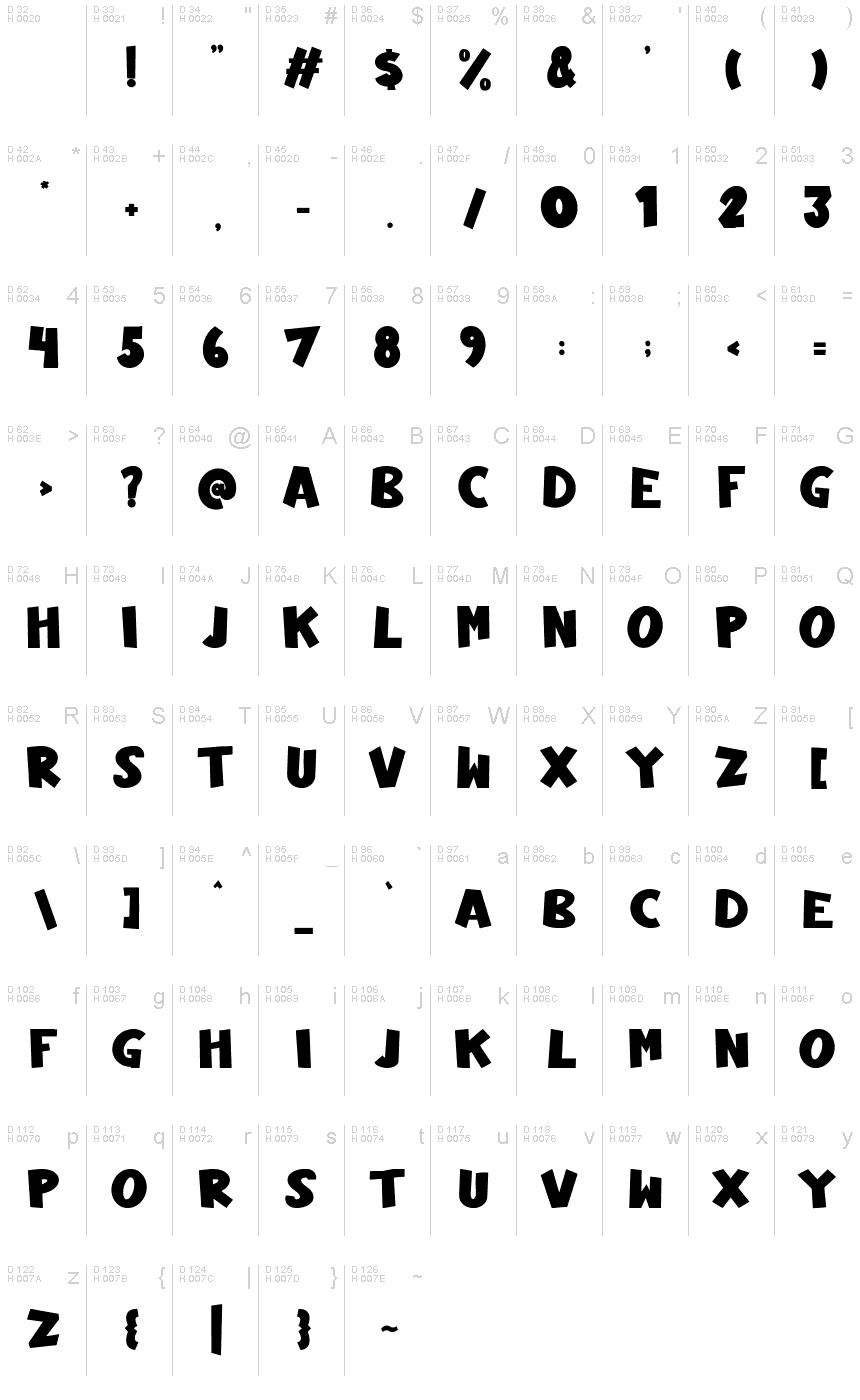
Blank Idea
Introducing Blank Idea, a bold display font designed by HATF. With its cartoon style, Blank Idea is perfect for fun projects like social media posts, logo designs, and posters. It will bring life to your creative ideas!